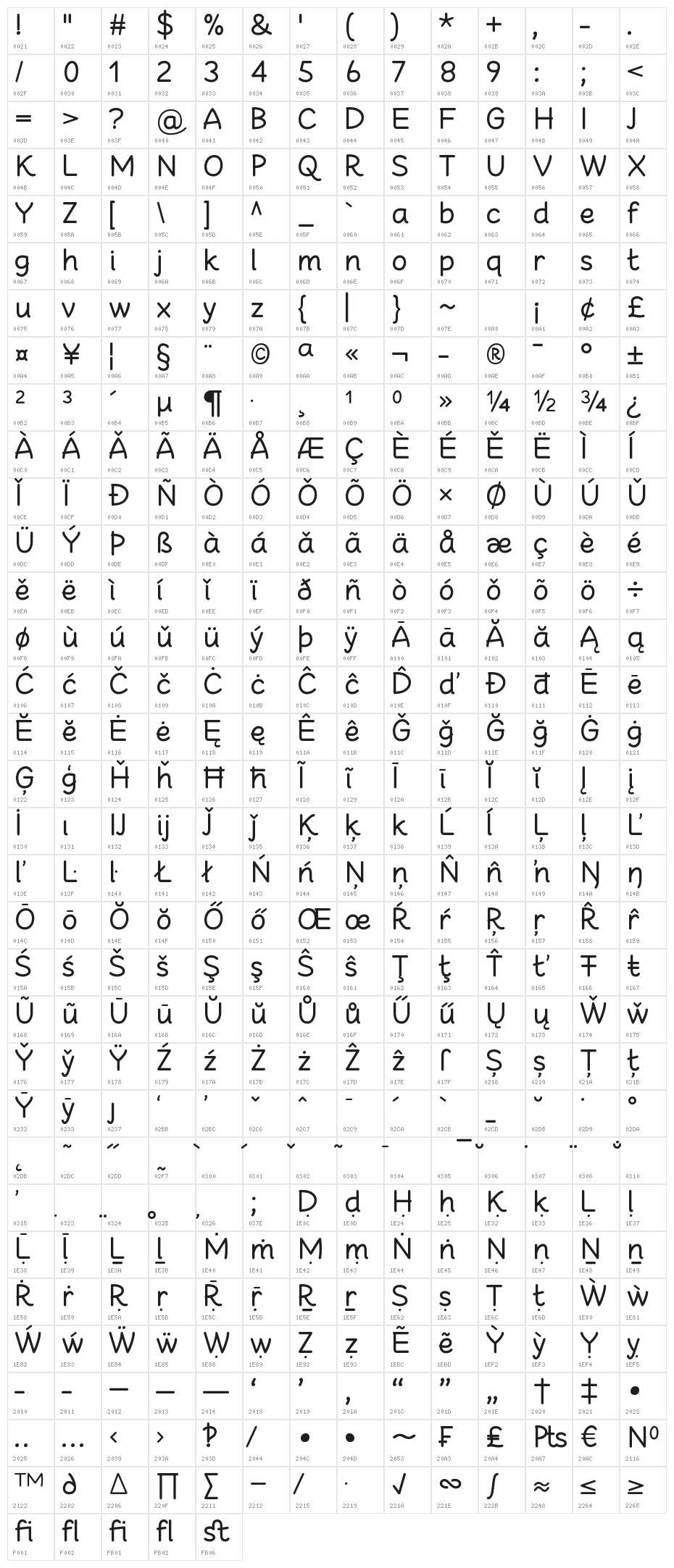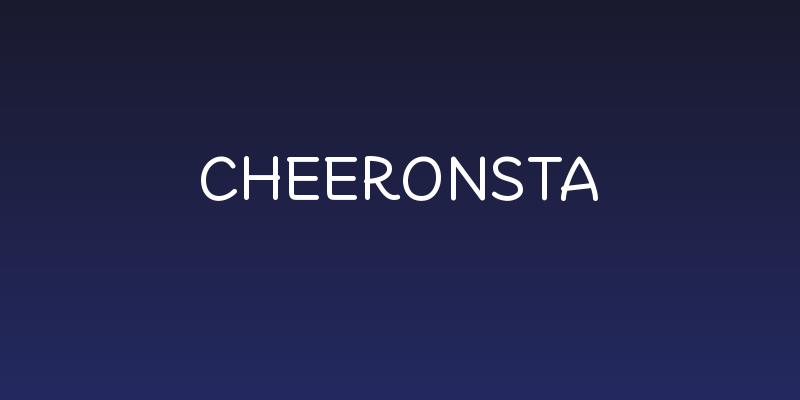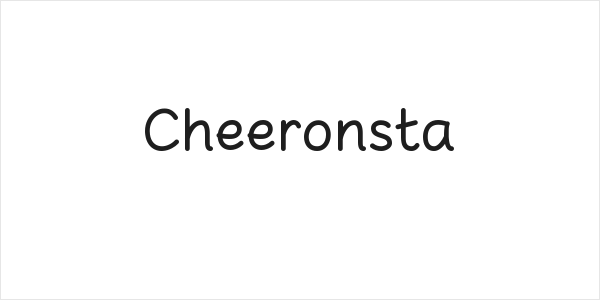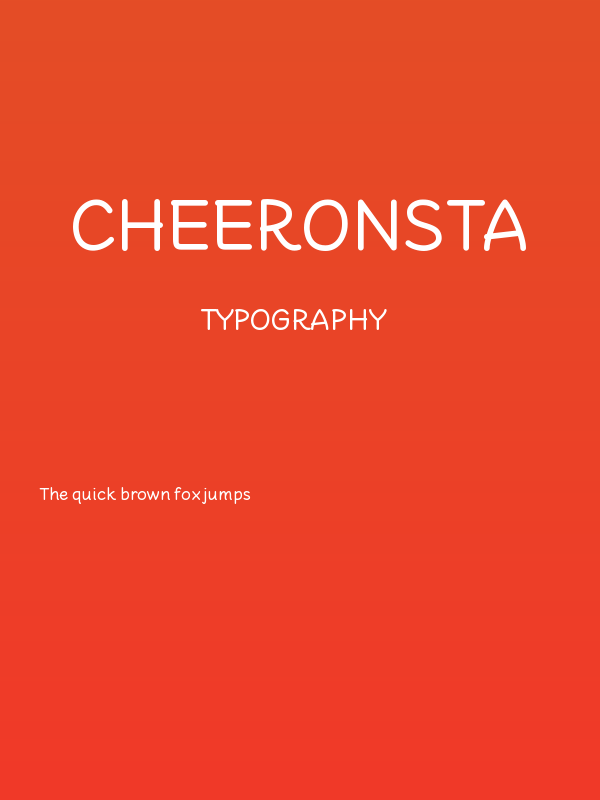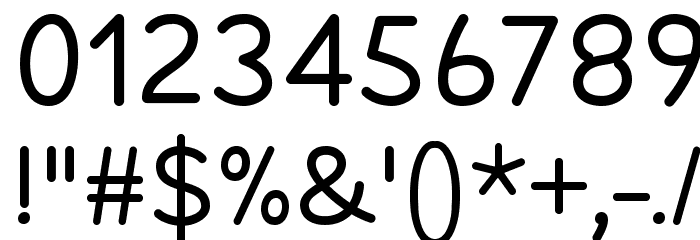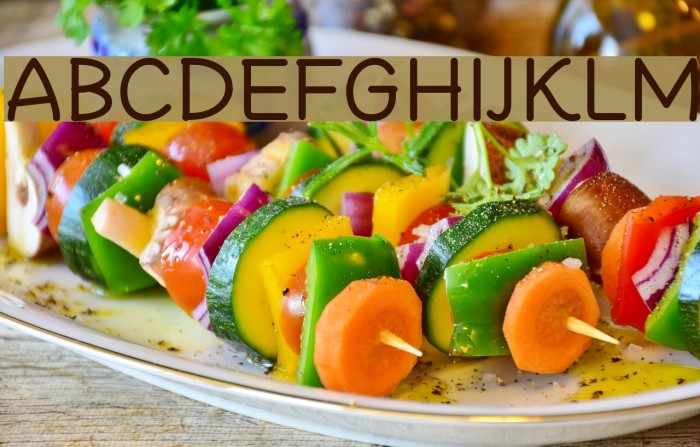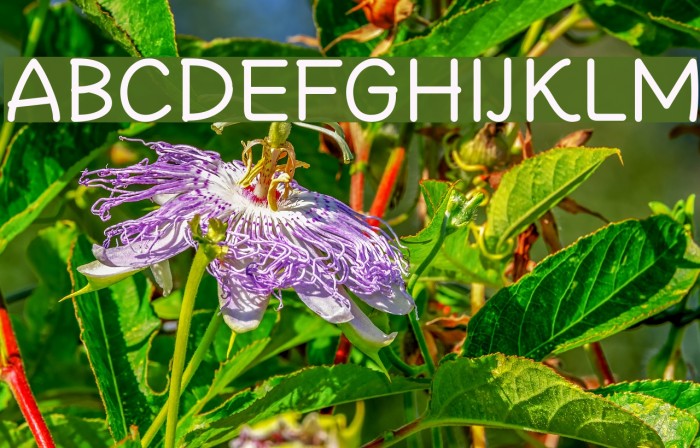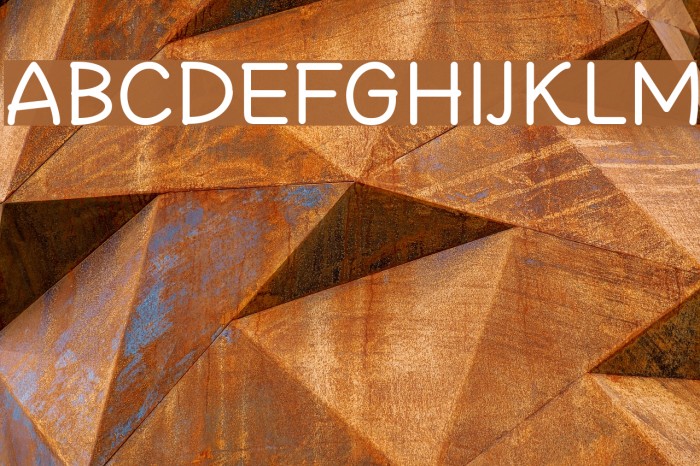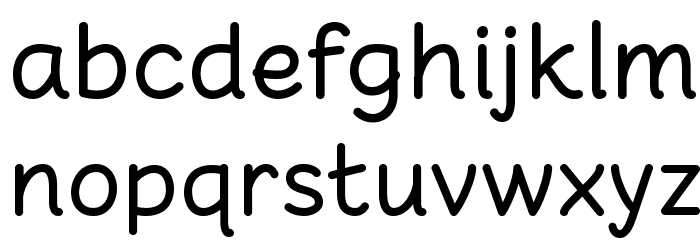
Cheeronsta Font
Cheeronsta Description
This font features a playful and rounded design, characterized by its smooth curves and friendly appearance. The letters are evenly spaced with a consistent stroke width, giving it a clean and approachable look. The uppercase and lowercase letters maintain a uniform style, with rounded edges that enhance its casual and informal feel. The numerals and special characters follow the same design principles, ensuring a cohesive appearance across all glyphs. This font is versatile, suitable for projects that require a touch of whimsy and warmth.
| Proposed Projects | Ideal for children's books, playful branding, casual invitations, and friendly user interfaces. |